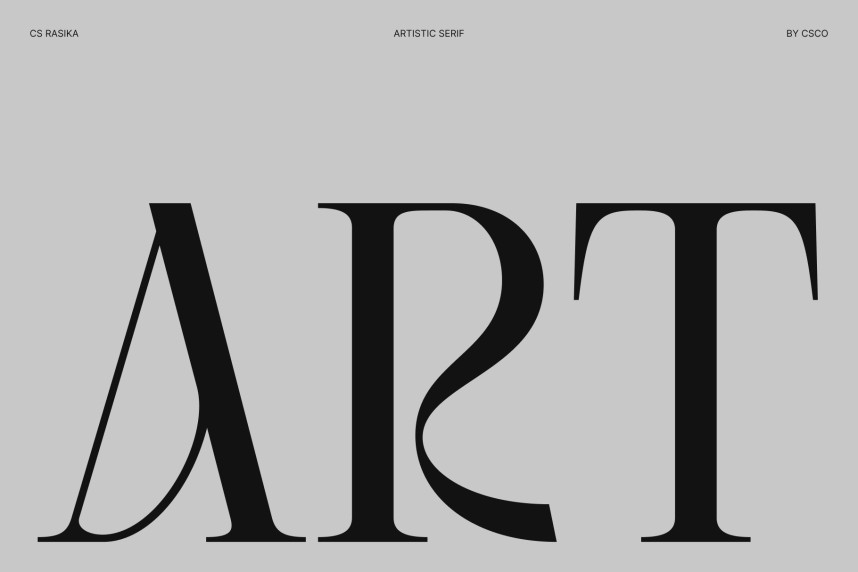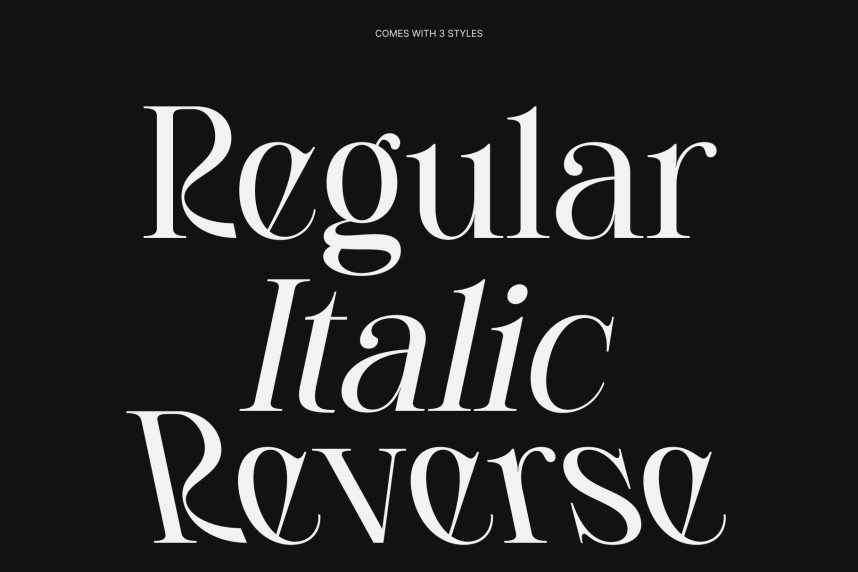
CS Rasika Font
CS Rasika Font– Elegant Serif with Timeless High-Contrast Beauty
Elegant Serif with Refined Curves
This is an elegant serif font designed to express sophistication through graceful curves and polished proportions. Every letterform feels carefully sculpted, creating a refined visual rhythm that immediately communicates luxury and professionalism. This typeface blends classic inspiration with modern precision, making it a powerful choice for designers seeking timeless elegance.